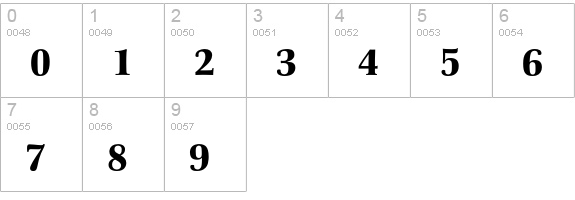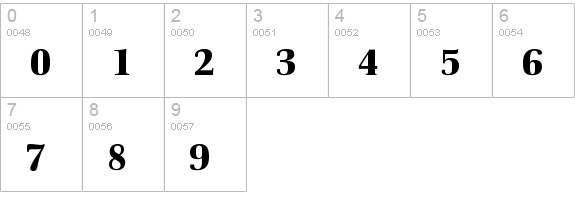
Schneider-Antiqua R Font Details
Schneider-Antiqua R is a timeless and elegant font that exudes sophistication and charm. This classic serif typeface is perfect for adding a touch of refinement to any project, whether it's a formal invitation, branding materials, or editorial design. With its clean and balanced letterforms, Schneider-Antiqua R effortlessly combines tradition with modernity. The subtle variations in stroke width and delicate serifs give this font a sense of grace and versatility. It is designed to be highly legible, making it an ideal choice for both print and digital applications. One of the most remarkable aspects of Schneider-Antiqua R is that it is available for free. Yes, you read that right! This exceptional font can be freely downloaded from FontsMarket.com, allowing designers and creatives to access its beauty without any restrictions. This makes Schneider-Antiqua R a valuable asset for both professional designers and hobbyists alike. Whether you are working on a commercial project or simply want to enhance your personal creations, Schneider-Antiqua R is a font that will elevate your work to new heights. Its timeless appeal and free availability make it an irresistible choice for anyone seeking a font that combines elegance and accessibility. Don't miss out on this opportunity to add Schneider-Antiqua R to your font collection. Visit FontsMarket.com today and experience the beauty and versatility of this stunning font firsthand.